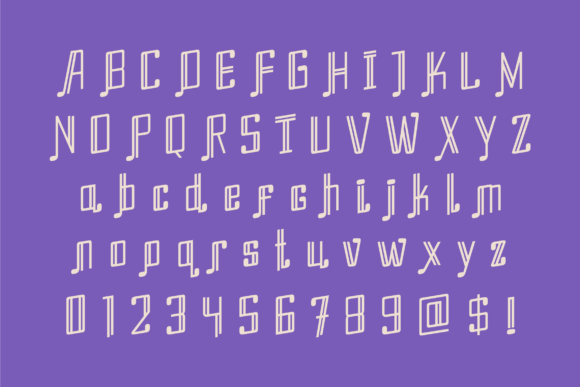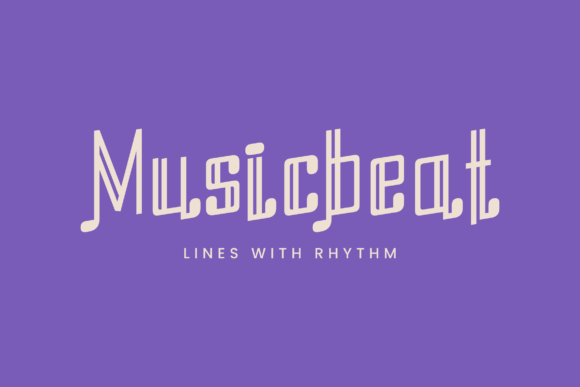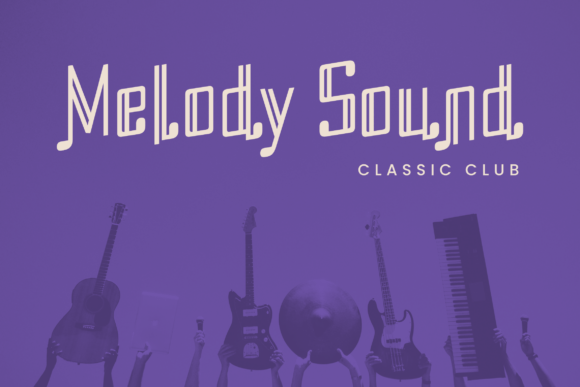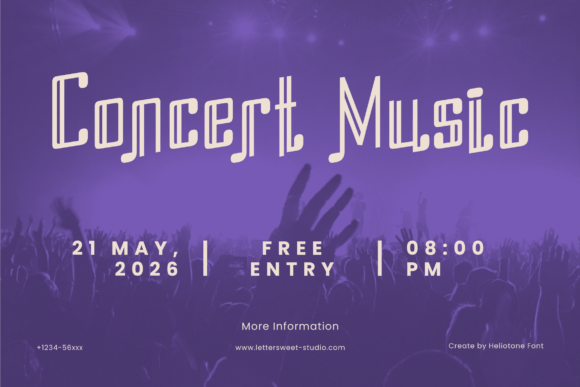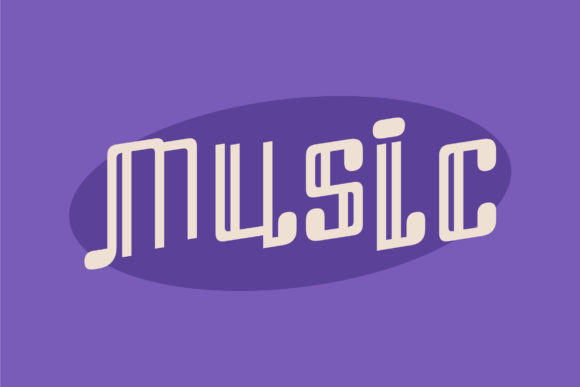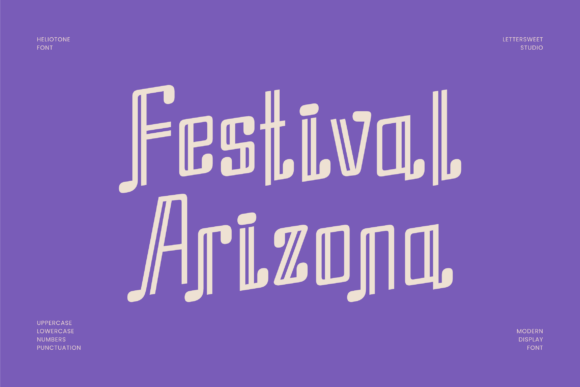
Heliotone Font: Elevate Your Designs with a Modern Music Display Font
Are you looking for a font that can add a bold, futuristic touch to your designs? Do you want to create a visual representation that feels like a live concert? Look no further than Heliotone, a modern music display font designed to bring an energetic and festival-ready vibe to any project.
The Design of Heliotone
Heliotone boasts tall letterforms, clean geometric lines, and rounded terminals that create a rhythmic flow reminiscent of sound waves frozen in motion. This unique design makes it perfect for music-related projects, such as music festival posters, DJ and band logos, album covers, and club flyers.
The font’s condensed shapes allow for easy fitting of long titles while maintaining readability and style. This feature is particularly useful for designers who need to convey a lot of information in a limited space, such as event tickets, YouTube thumbnails, or streaming cover art.
Perfect for Music-Related Projects
Heliotone is specifically designed to bring an energetic and lively feel to music-related projects. Its bold and futuristic design makes it ideal for:
- Music festival posters: Create eye-catching posters that capture the essence of a music festival.
- DJ and band logos: Develop a unique and recognizable logo that stands out in the music industry.
- Album covers: Design album covers that reflect the music’s genre and style.
- Club flyers: Create flyers that promote events and attract a large audience.
- Streaming cover art: Design cover art that showcases the music and attracts listeners.
- Event tickets: Add a touch of excitement to event tickets with Heliotone’s bold design.
- YouTube thumbnails: Create thumbnails that grab attention and entice viewers to click.
Why Choose Heliotone?
There are several reasons why Heliotone stands out from other fonts:
- Unique design: Heliotone’s design is unlike any other font, making it perfect for music-related projects.
- Readability: Despite its bold design, Heliotone remains readable even at small sizes.
- Versatility: Heliotone can be used for a wide range of projects, from posters to social media graphics.
Tips for Using Heliotone
To get the most out of Heliotone, here are some tips:
- Use it for headlines: Heliotone is perfect for headlines that need to stand out.
- Experiment with colors: Heliotone looks great in bold colors, so don’t be afraid to experiment.
- Pair it with other fonts: Heliotone can be paired with other fonts to create a unique visual style.
- Use it consistently: Use Heliotone consistently across your designs to create a recognizable brand.
Heliotone is a modern music display font that can elevate your designs and add a bold, futuristic touch. Its unique design, readability, and versatility make it perfect for music-related projects. Whether you’re a designer, craftsperson, or DIY enthusiast, Heliotone is a great choice for anyone looking to create eye-catching and engaging designs.